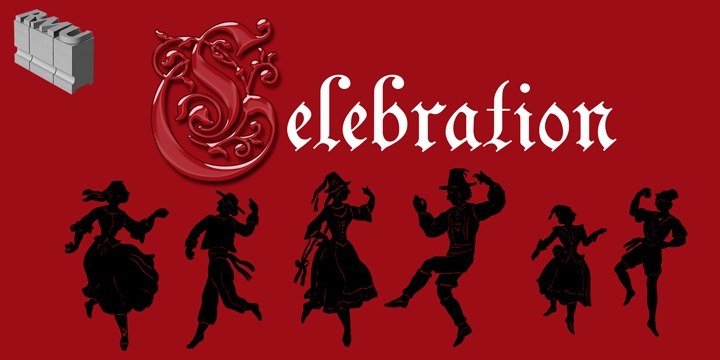
Celebration Font
This festive typeface is perfect for party invitations, birthday banners, holiday greeting cards, wedding announcements, anniversary materials, graduation ceremonies, festival posters, special event signage, and joyful marketing campaigns. Celebration Font brings vibrant energy to any project where happiness and excitement need to be conveyed through typography.
What makes Celebration Font so exciting is its ability to instantly transform ordinary text into a visual celebration. The font features playful letterforms with dynamic character variations that capture the spirit of joy and festivity. Each glyph has been designed with careful attention to maintaining readability while expressing pure enthusiasm and positive energy. The typeface's cheerful personality creates an immediate emotional connection with viewers, making it perfect for occasions where you want to spread happiness and create memorable experiences through design.
The Celebration Font includes essential style variations: Regular, Bold, Outlined, and Shadow versions. This versatile collection allows designers to create layered effects, dimensional text treatments, and eye-catching headlines that perfectly capture celebratory moods. Each style maintains the font's joyful character while providing different visual impact levels for various design applications and festive themes.
This joyful typeface represents the perfect solution for designers seeking to infuse their work with genuine celebration and positive vibes.